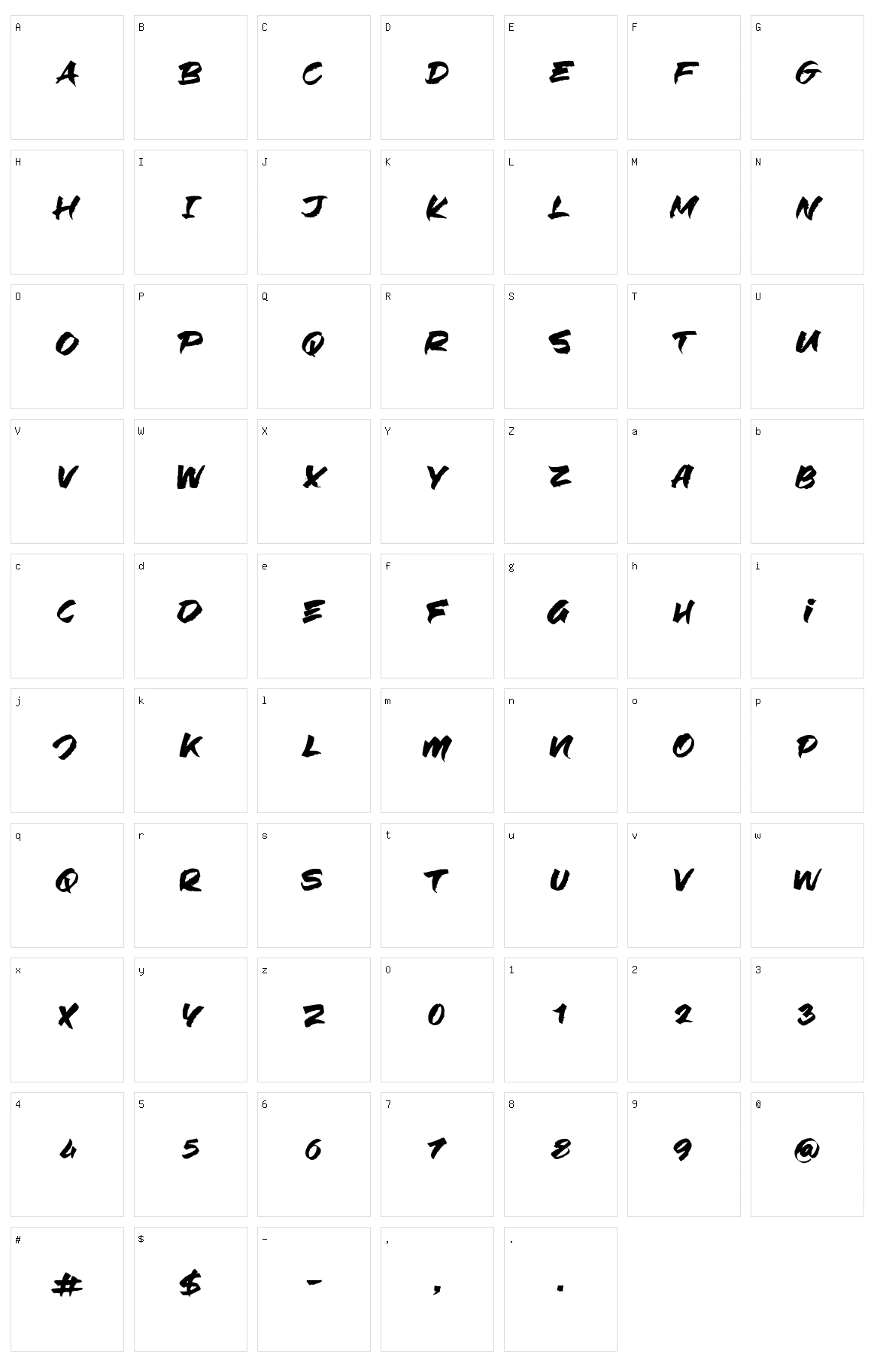
The free font There Must Be A Reason is carefully designed by Roland Huse Design, showcasing a thoughtful balance of creativity and usability and falls under the Script font style. When you download the ZIP file, it contains only 1793.98 KB of font files, making it lightweight and quick to download. Please review the license details below to understand permitted usage and distribution rights. If license information is not available, we recommend using this font for personal projects only or contacting the author directly for commercial usage permissions.